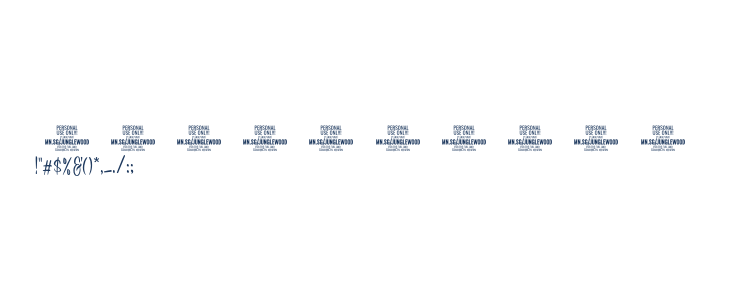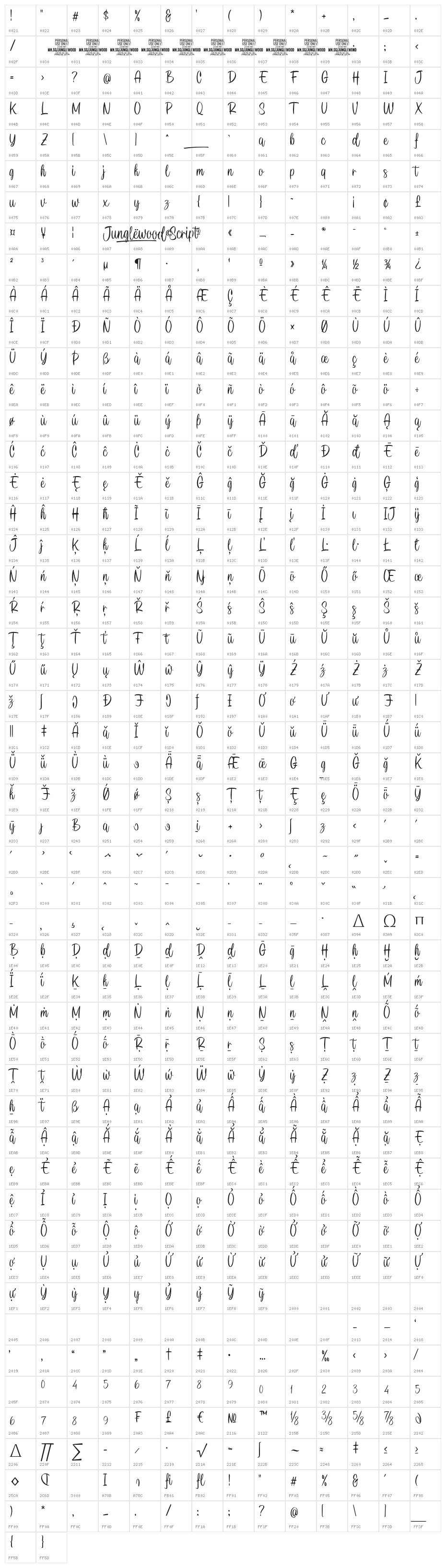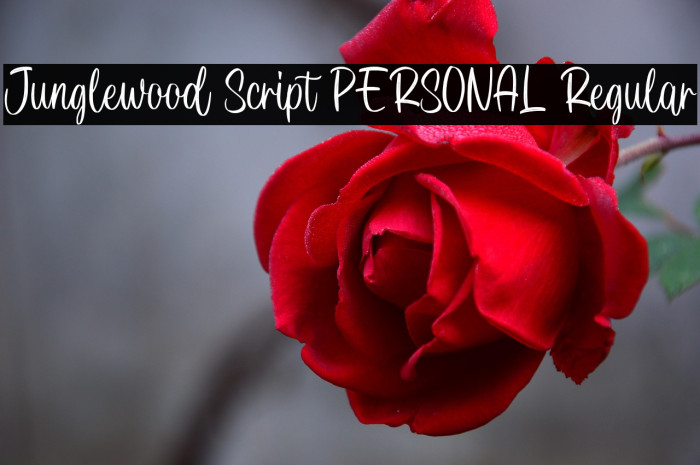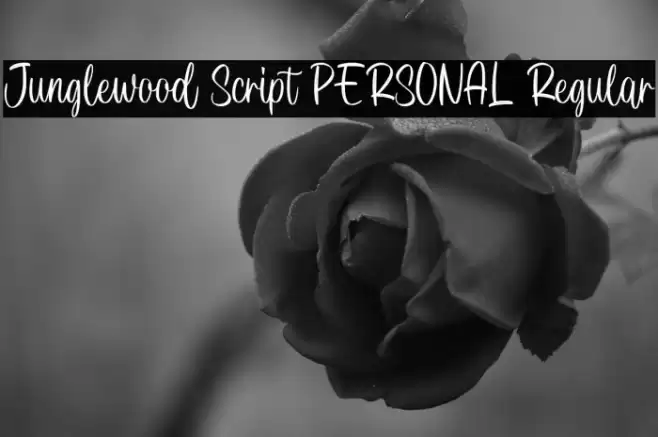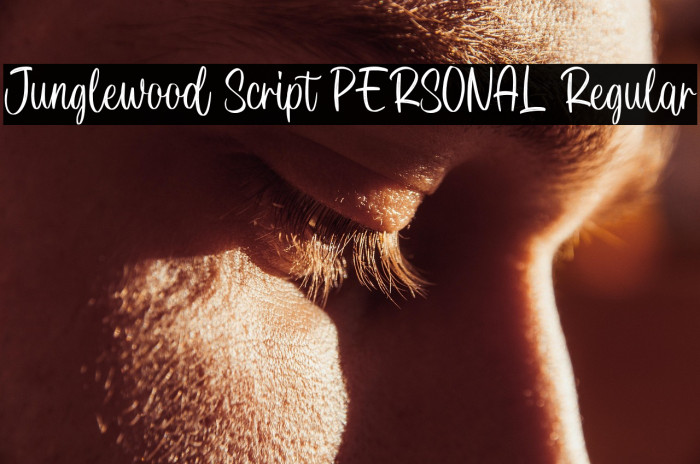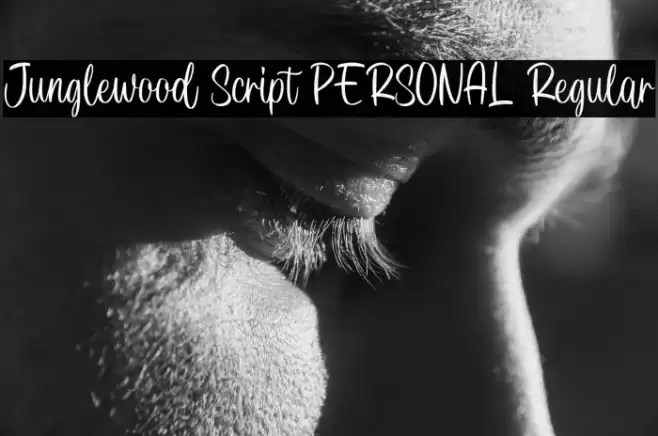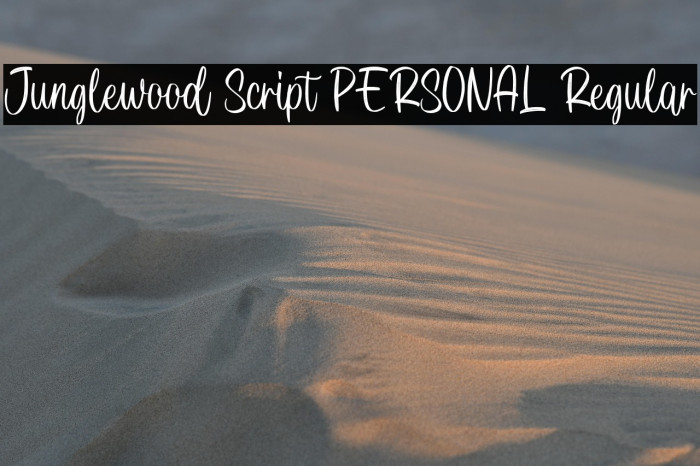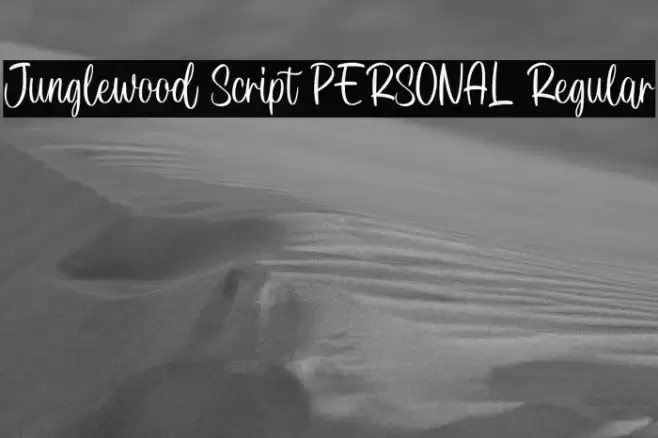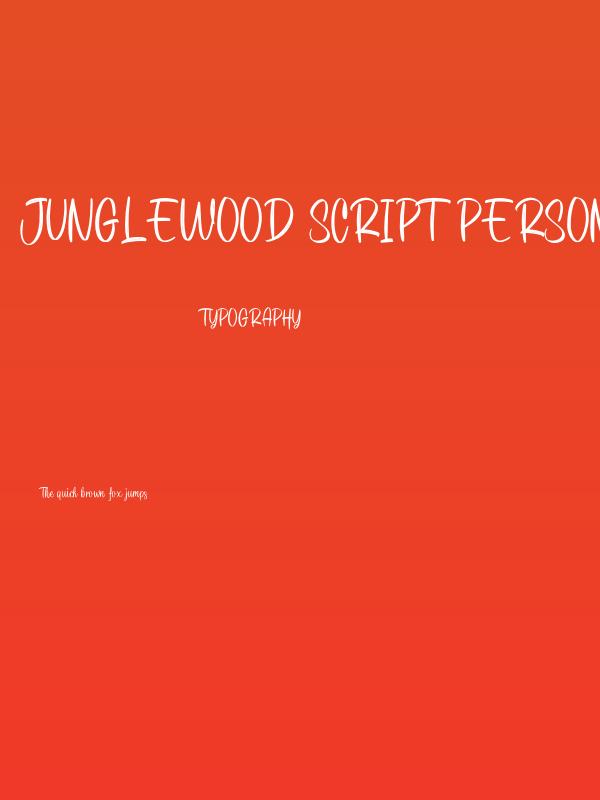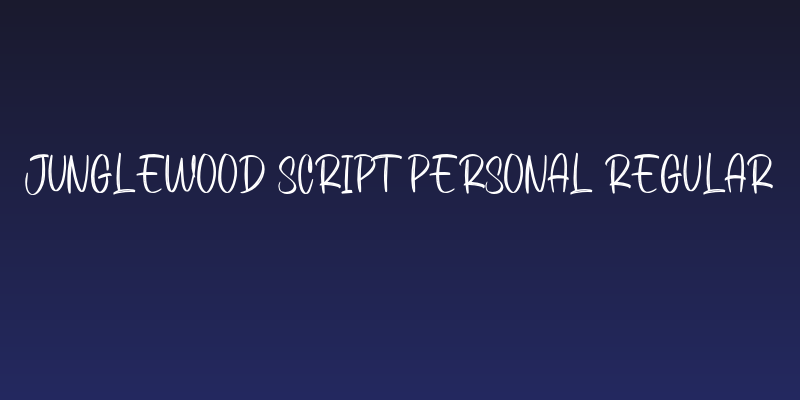
Junglewood Script PERSONAL Regular Font
Junglewood Script PERSONAL Regular Description
This font features a playful and energetic script style with a handwritten appearance. The uppercase letters are bold and dynamic, with a slight slant that adds movement and flair. The lowercase letters maintain a consistent flow, with smooth curves and loops that enhance its casual and friendly feel. The numerals and special characters are crafted to match the lively aesthetic, making it suitable for creative and informal designs. The overall look is both approachable and stylish, perfect for projects that require a personal touch.
| Proposed Projects | Ideal for greeting cards, invitations, branding projects, and social media graphics. |